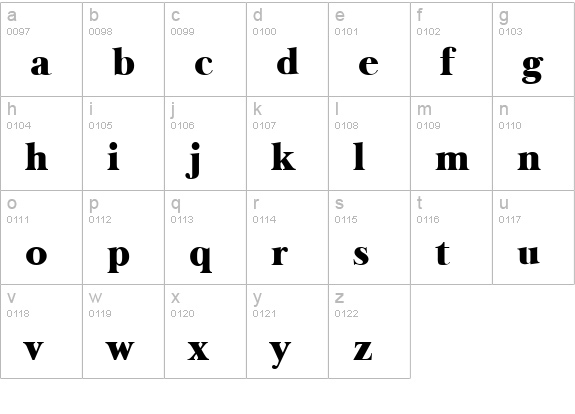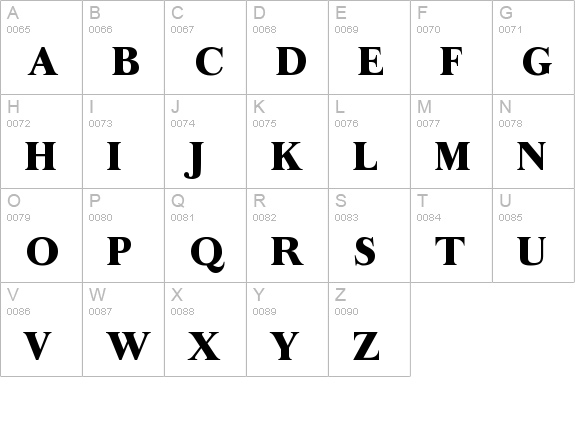
LongIsland Regular Font Details
LongIsland Regular is the standard, neutral variant in the LongIsland typeface family \xE2\x80\x94 well suited to general body text, paragraphs, and standard typographic work.
LongIsland Regular font is a versatile and elegant typeface that exudes sophistication and style. With its clean lines and classic design, this font is perfect for a wide range of design projects, from branding to editorial work. The timeless appeal of LongIsland Regular makes it a go-to choice for designers looking to add a touch of sophistication to their creations. Best of all, LongIsland Regular font is available for free download at FontsMarket.com. This means that you can access this beautiful font without any cost, making it a valuable addition to your font library. Don't miss out on the opportunity to enhance your designs with the timeless elegance of LongIsland Regular font - download it for free today at FontsMarket.com!